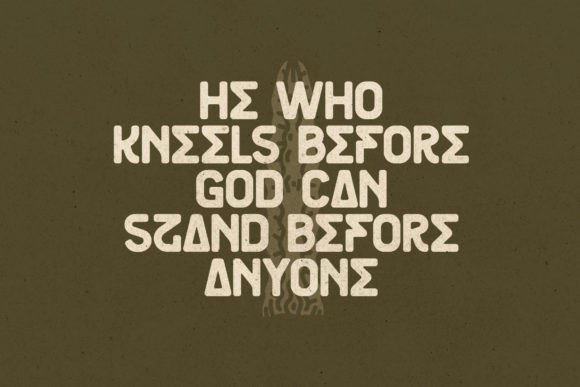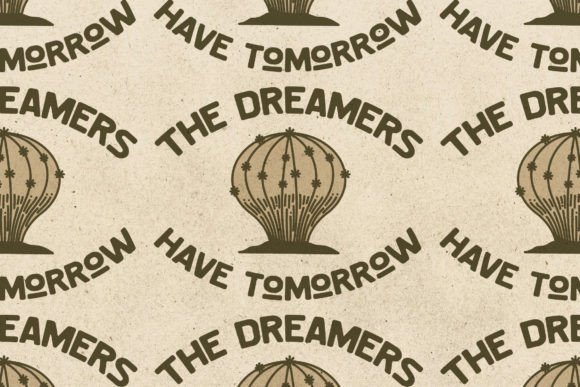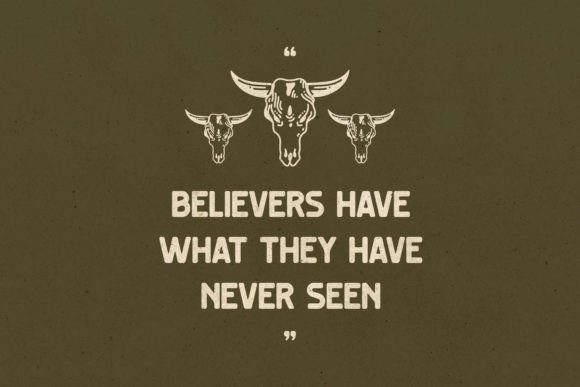
Introduction to Jabregor Font
Have you ever stumbled upon a design that instantly sparks creativity and sets your imagination ablaze? For many designers, this moment is a treasure trove of inspiration, and the perfect starting point for a new project. For me, it’s the discovery of a unique and elegant font that can elevate even the simplest design to new heights. One such font that has captured the hearts of many designers is the Jabregor Font.
As a valuable design resource, the Jabregor Font is perfect for designers looking to add a touch of sophistication and luxury to their creative projects. With its modern look and classic style, this font is ideal for creating eye-catching logos, book or movie title designs, and even fashion brands. Whether you’re working on a high-end magazine or designing a clothing label, the Jabregor Font is sure to make your design stand out.
What makes the Jabregor Font truly special is its high-quality design, which can be easily downloaded and used with a transparent background. This makes it a versatile choice for designers, allowing them to experiment with different design elements and create stunning visuals. So, if you’re looking to take your design to the next level, look no further than the Jabregor Font.
Key Features of Jabregor Font
- Unique, modern design with a transparent background for versatility
- Supports a wide range of languages, making it a great choice for global projects
Honest Review: Jabregor Font
As a designer, I’m always on the lookout for high-quality design resources to elevate my creative projects. The Jabregor Font is one such resource that caught my attention, and I’m excited to share my honest review with you.
- Unique Design**: The Jabregor Font boasts a distinctive and quirky design that’s perfect for adding a touch of personality to your projects.
Tips for Getting the Most Out of Jabregor Font
When using Jabregor Font, remember to experiment with different font sizes, colors, and styles to find the perfect look for your design. You can also use the font in combination with other design elements to create a unique and eye-catching design. Don’t forget to save your design as a high-quality image to ensure the best results.
Common Use Cases for Jabregor Font
Jabregor Font is a versatile design resource that can be used in a variety of creative projects, including logos, social media graphics, and presentations. Its transparent background and high-quality design make it perfect for overlaying on top of other design elements or using as a background element itself.